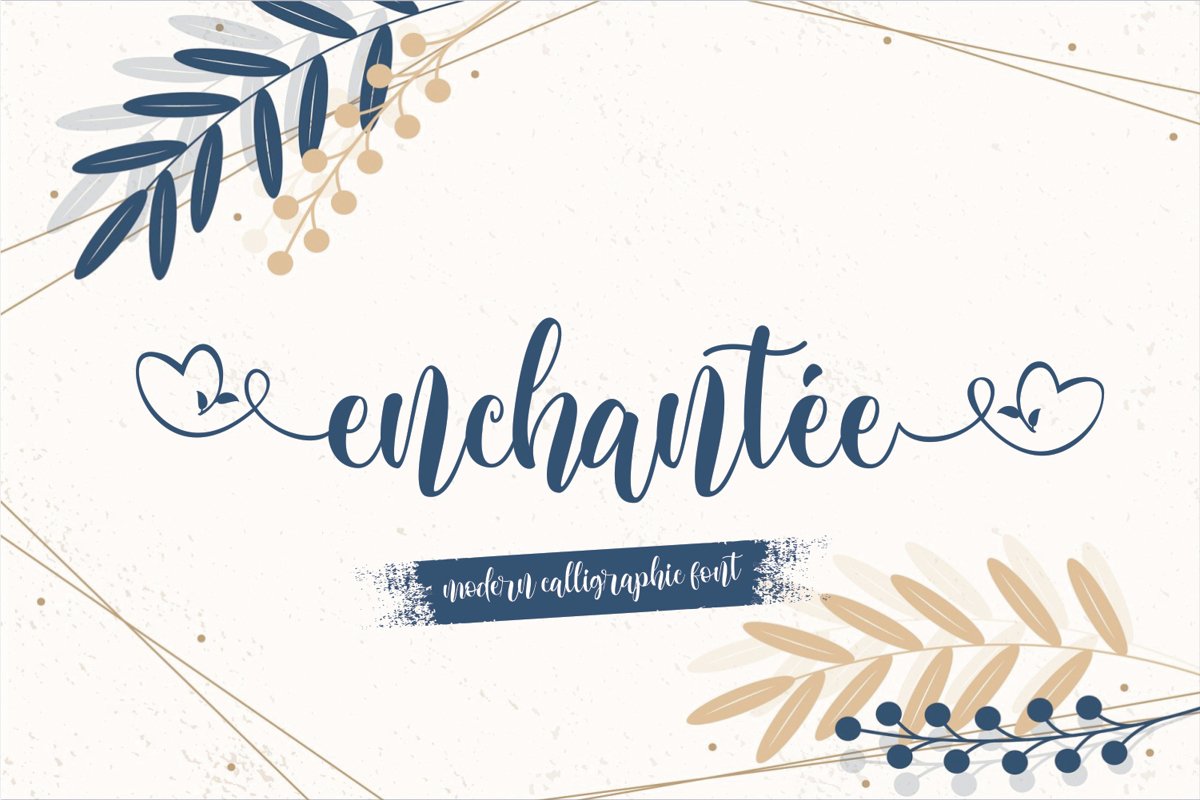
enchantee
enchantée
enchantee is a beautiful and artistic font that is perfect for company brands, company logos, company names, book titles and movie titles.